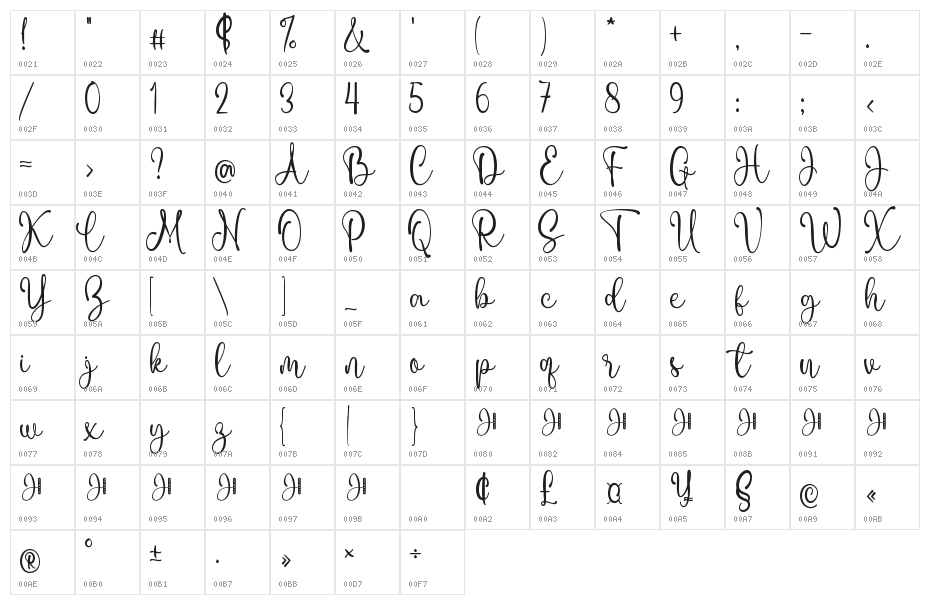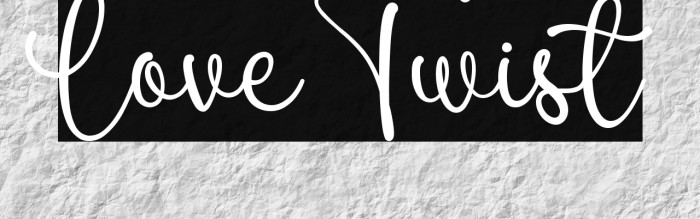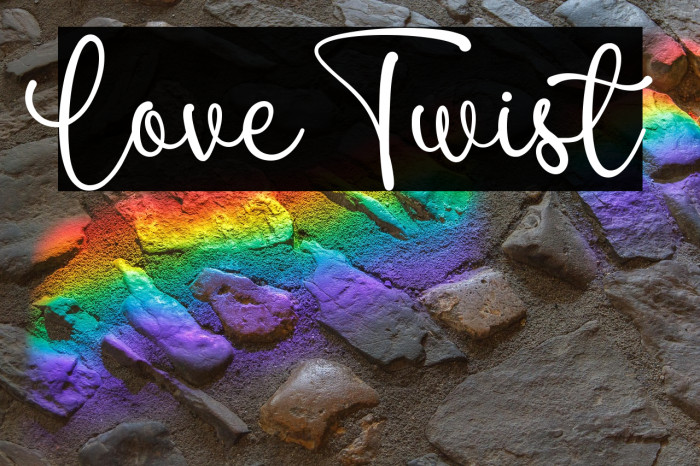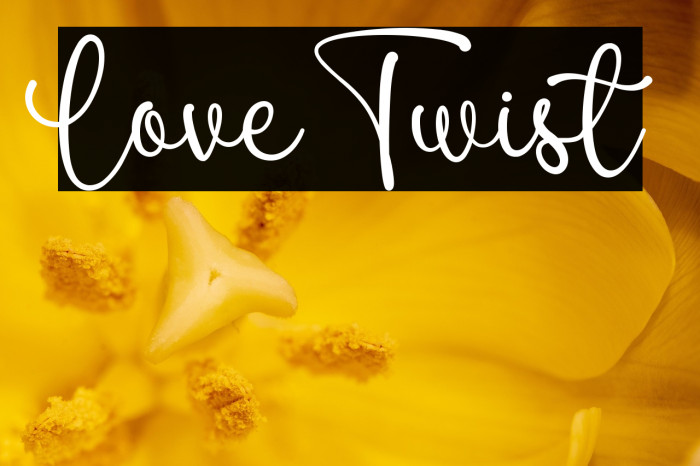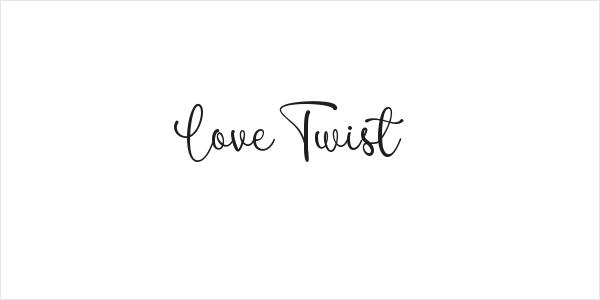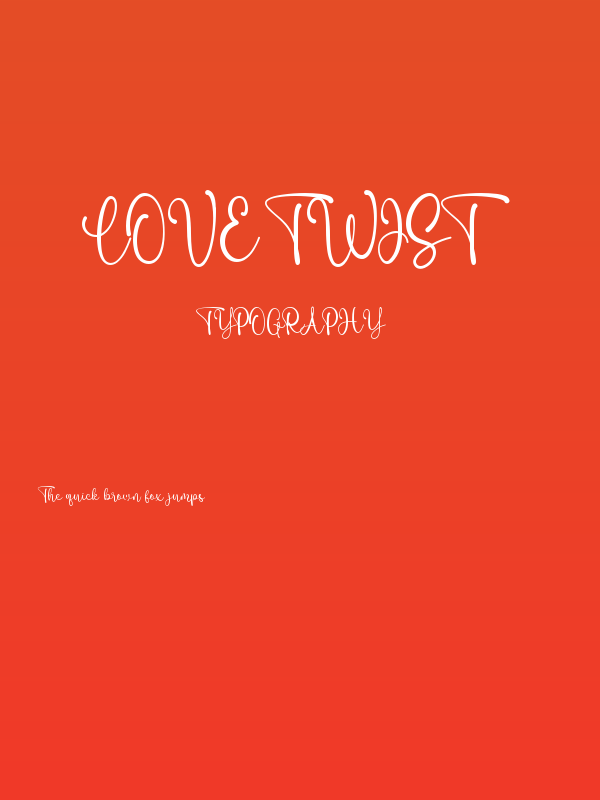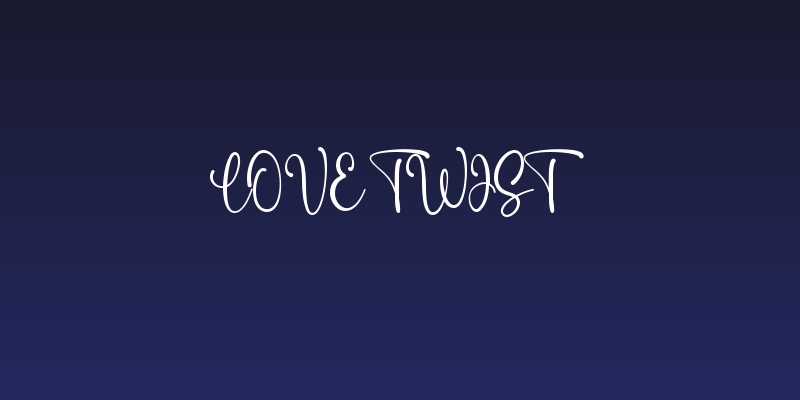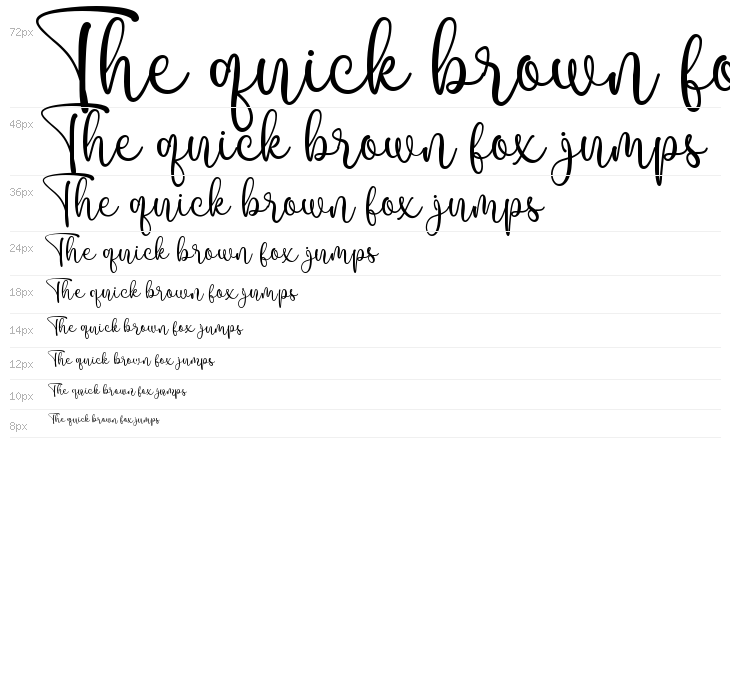
Love Twist Font
Love Twist Description
This font features a charming and playful script style with a handwritten appearance. The letters are fluid and connected, giving a sense of movement and elegance. Uppercase letters are slightly more ornate, while lowercase letters maintain a consistent flow. The numerals are clear and maintain the same playful style as the letters. Special characters are well-integrated, adding to the font's versatility. The overall look is whimsical yet sophisticated, making it suitable for a variety of creative projects.
| Proposed Projects | Ideal for wedding invitations, greeting cards, branding, and social media graphics. |